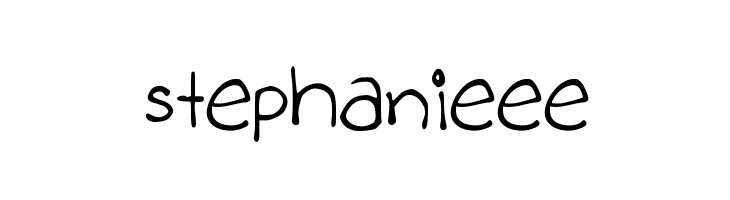
A slender, hand-drawn font with an elegant and whimsical style.
A playful, handwritten font with a whimsical and casual style.
A playful handwritten font with irregular strokes and a casual, organic flow.
A playful, casual handwritten font with irregular strokes and a dynamic feel.